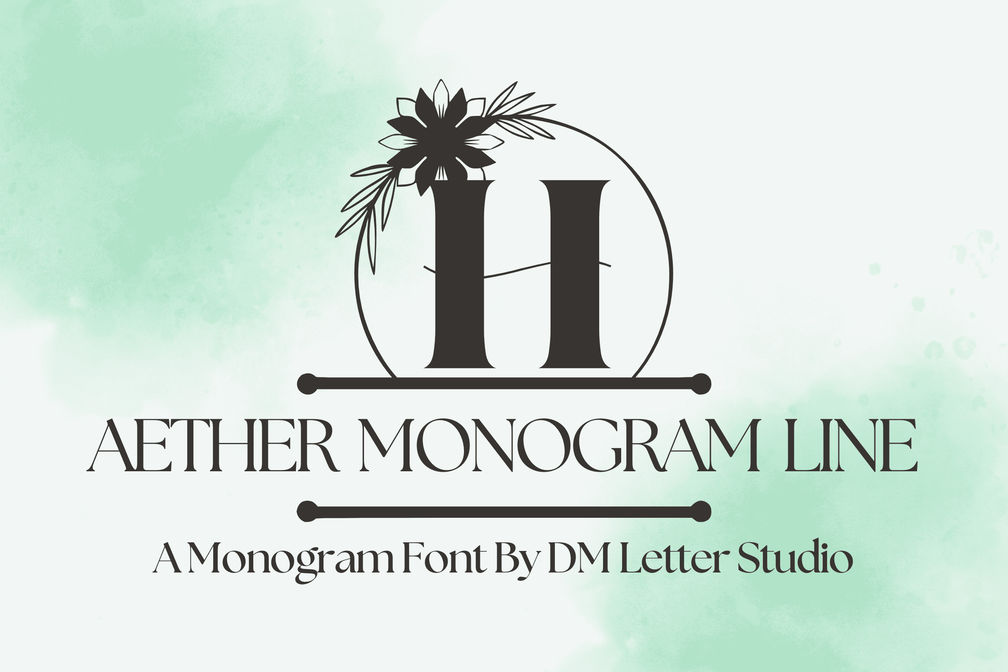
Aether Monogram Line
Aether Monogram Line – Elegant Linear Monogram Font
Aether Monogram Line is a sophisticated and refined monogram typeface featuring delicate linework and beautifully balanced letterforms. Designed for high-end branding, wedding invitations, luxury stationery, and personalized monograms, this font adds a graceful and timeless touch to any design. Its clean, minimalistic style makes it perfect for both modern and classic applications.
• Elegant Linear Monogram Design: Thin, refined lines for a sophisticated and stylish look.
• Perfect for Luxury & Wedding Branding: Ideal for invitations, boutique logos, personalized gifts, and elegant stationery.
• Timeless & Versatile: Suitable for classic, modern, and minimalist aesthetics.